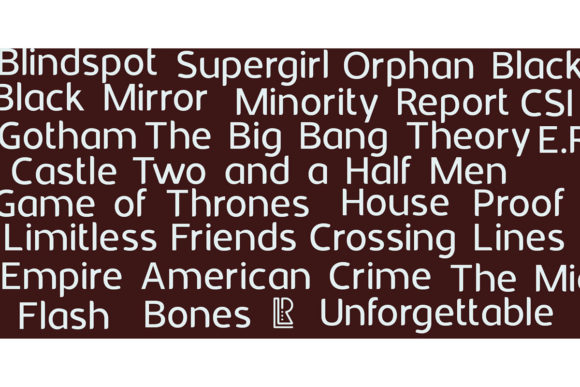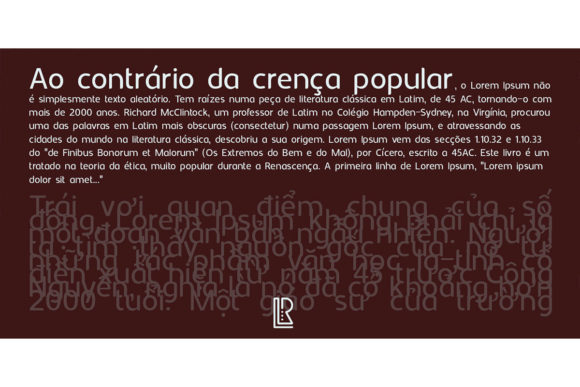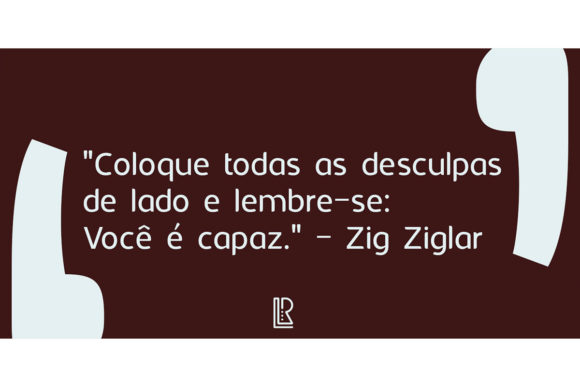
Introduction to Mufflu Font Font
Fonts play a crucial role in design, and the Mufflu Font font is a typeface that brings both character and versatility to any project. Whether you’re working on a branding project, a website, or a print design, the Mufflu Font font offers a unique style that can elevate your work.
Mufflu is a cool and adaptable sans serif font.
It is suitable for book texts, documentation, business reports, business correspondence, magazines, newspapers, posters, advertisements, multimedia, and corporate design .
Key Features of Mufflu Font Font
Why Choose Mufflu Font Font?
The Mufflu Font font is more than just a typeface – it’s a design tool that helps you communicate your message with style and clarity. Its unique character set and versatile design make it suitable for a wide range of applications, from elegant invitations to bold headlines.
With its carefully crafted letterforms and balanced proportions, the Mufflu Font font ensures readability and visual appeal across all mediums.
What makes Mufflu Font font special?
The Mufflu Font font stands out with its unique design, exceptional readability, and versatility across various design applications.